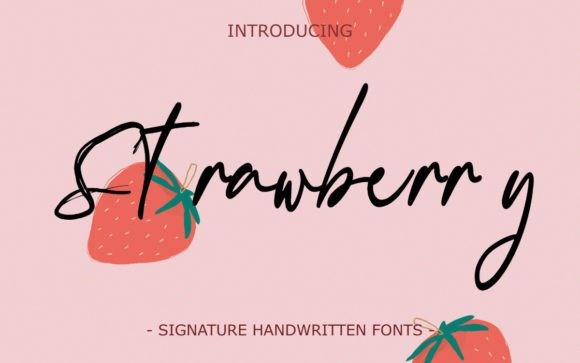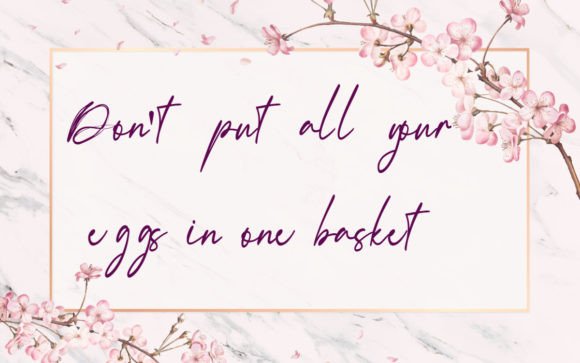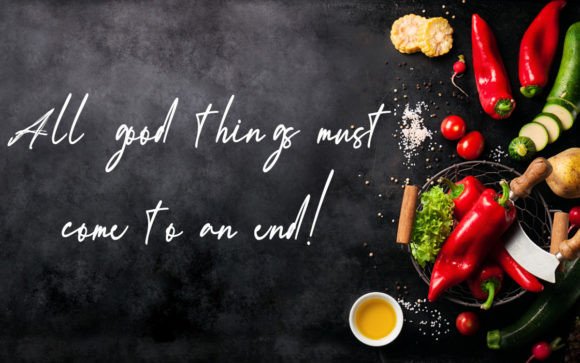
Strawberry Font
Introducing Strawberry Font: A Playful and Whimsical Handwritten Delight
Get ready to add a delightful twist to your font library with Strawberry! This whimsical handwritten font is the epitome of fun and playfulness, and it has the potential to elevate any creation, no matter the topic or purpose.
**Whimsy at Its Best:**
Strawberry is all about whimsy. Its handwritten charm exudes a sense of joy and lightheartedness that’s bound to bring a smile to your projects. Whether you’re working on something serious or light-hearted, this font effortlessly adds a touch of whimsical magic.
**Versatile Asset:**
Strawberry isn’t just a font; it’s a versatile asset that belongs in every designer’s toolkit. No matter the creative endeavor—be it logos, invitations, posters, or any design project—Strawberry lends its playful charm to enhance the overall aesthetic.
**A Splash of Creativity:**
One of the standout features of Strawberry is its ability to infuse a splash of creativity into your work. Its unique style and quirky details make it perfect for projects that demand a bit of unconventional flair. With Strawberry, your creations will stand out from the ordinary.
**Boost Your Branding:**
For branding, Strawberry is a sweet choice. It adds a friendly and approachable tone to your brand identity, making it memorable and relatable. Whether you’re crafting a logo or designing packaging, Strawberry ensures your brand is as inviting as it is distinctive.
**Invitations That Pop:**
When it comes to invitations, Strawberry adds a touch of fun and excitement. Whether you’re planning a birthday party, a wedding, or any special event, this font sets the tone with its whimsical elegance, making your invitations truly delightful.
**Posters That Wow:**
For posters and promotional materials, Strawberry is your secret weapon. It captures attention and holds it with its playful allure. Your messages will be conveyed with an extra dose of charm that’s sure to leave a lasting impression.
**Endless Creativity:**
Strawberry opens up a world of creative possibilities. Its fun and whimsical nature encourage you to think outside the box and experiment with design in new and exciting ways. Let your imagination run wild with Strawberry as your creative companion.
In conclusion, Strawberry is not just a font; it’s a source of creative inspiration. Its whimsical charm and versatility make it an excellent addition to your font library, ready to enhance any creation you embark upon. Embrace the playful spirit of Strawberry font and watch your designs come to life with a delightful touch of whimsy. Add Strawberry to your collection today and infuse your projects with the joy and magic of this charming handwritten font!